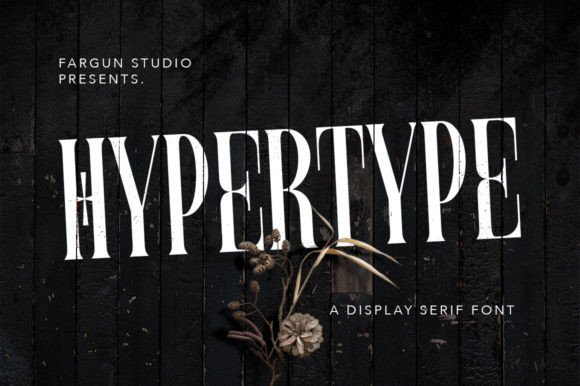
Prepare to be mesmerized by Hypertype, the latest addition to our typography collection. This exquisite serif font is a masterpiece of design, meticulously crafted to captivate your senses. With its modern, elegant, and chic style, Hypertype empowers you to transform your creations into works of art.
Step into a world where readability meets beauty. Hypertype's crisp lines and graceful curves dance across the page, inviting your eyes to linger. Its timeless appeal makes it an ideal choice for any project, from sophisticated branding to captivating web design.
Immerse yourself in the world of Hypertype and discover its boundless versatility. Whether you're crafting elegant invitations, designing stunning logos, or creating engaging presentations, Hypertype will elevate your work to new heights. Its LED display-optimized design ensures your messages shine brightly, capturing the attention of every audience.
With Hypertype, you're not just downloading a font; you're unlocking a realm of creative possibilities. Its ability to convey both sophistication and playfulness empowers you to create designs that evoke emotion and leave a lasting impression.